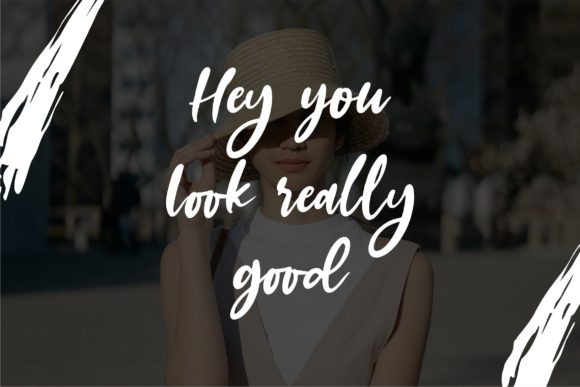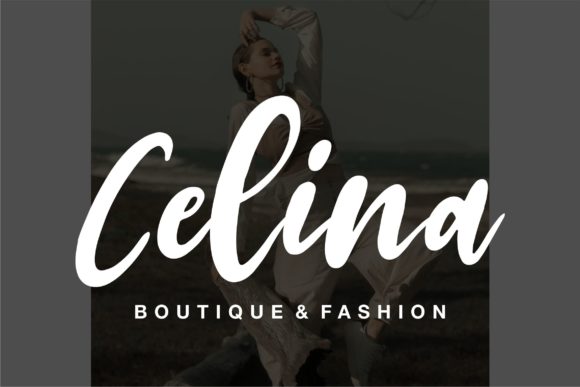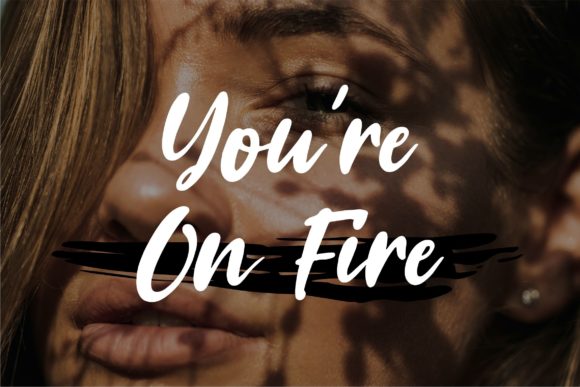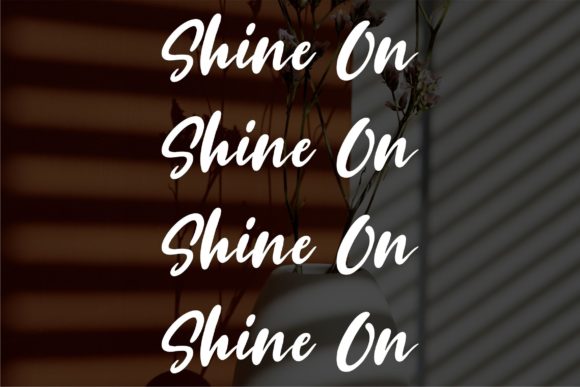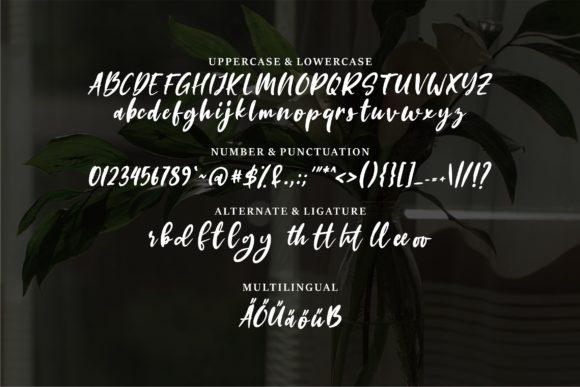
Introduction to Anitta Font
Anitta is a trendy and chic handwritten font.
It has a neat and modern look that can be used for logos, branding, invitations, stationery, wedding designs, social media posts, and much more .
Key Features of Anitta Font
Why Choose Anitta Font?
Anitta Font offers exceptional quality and versatility, making it a valuable addition to your design toolkit. Whether you’re creating for personal projects or commercial use, Anitta Font delivers professional results.